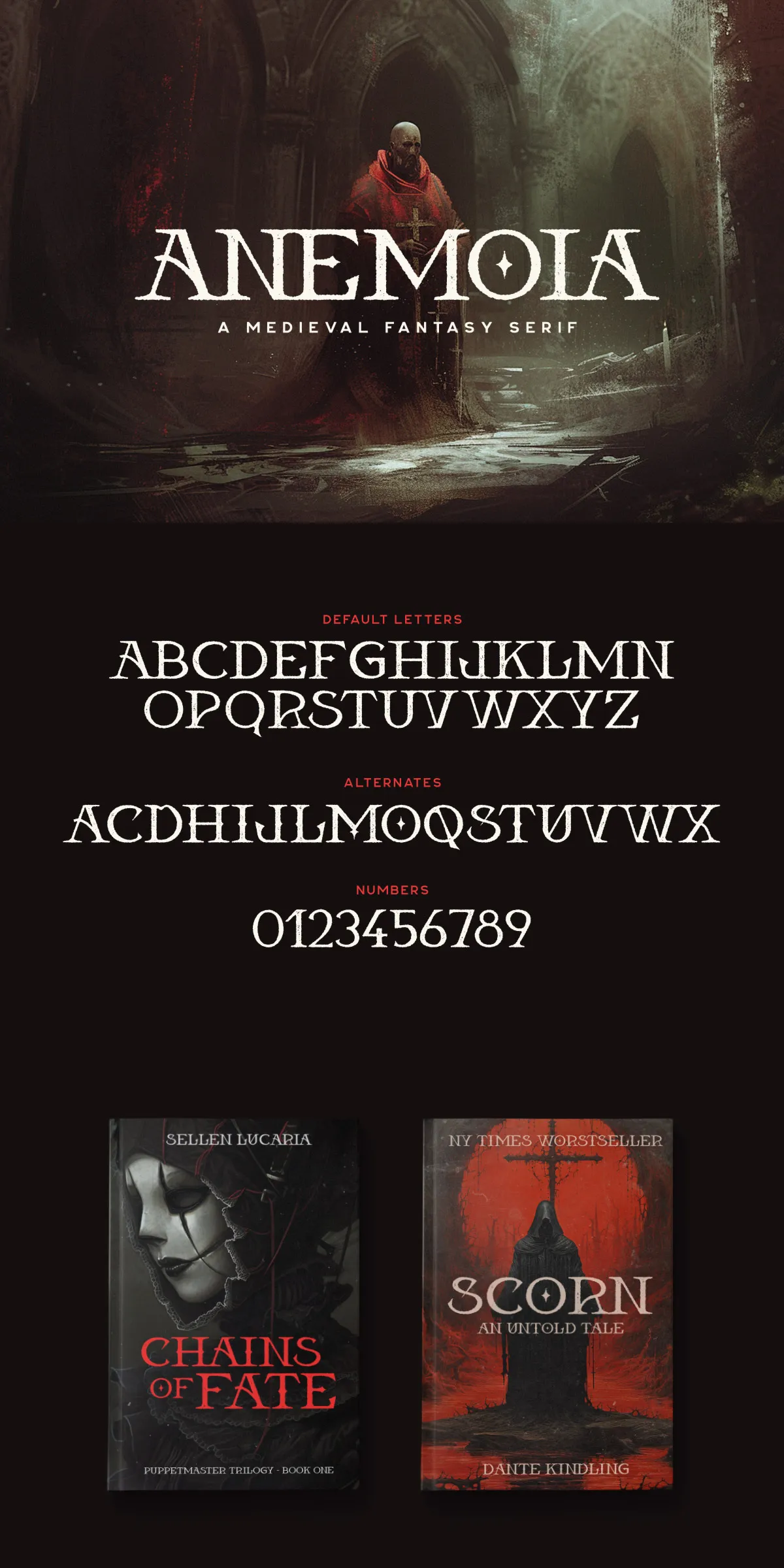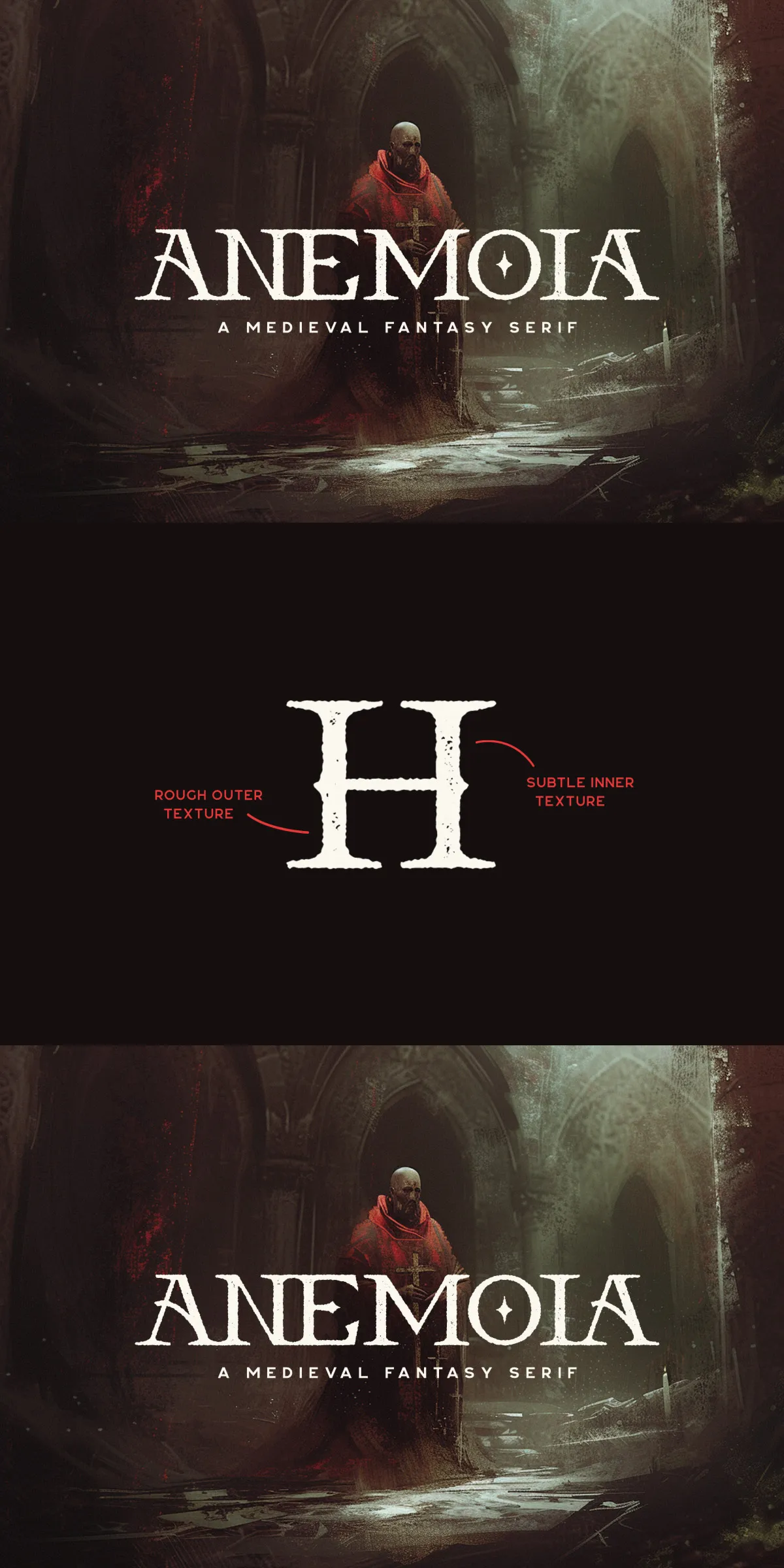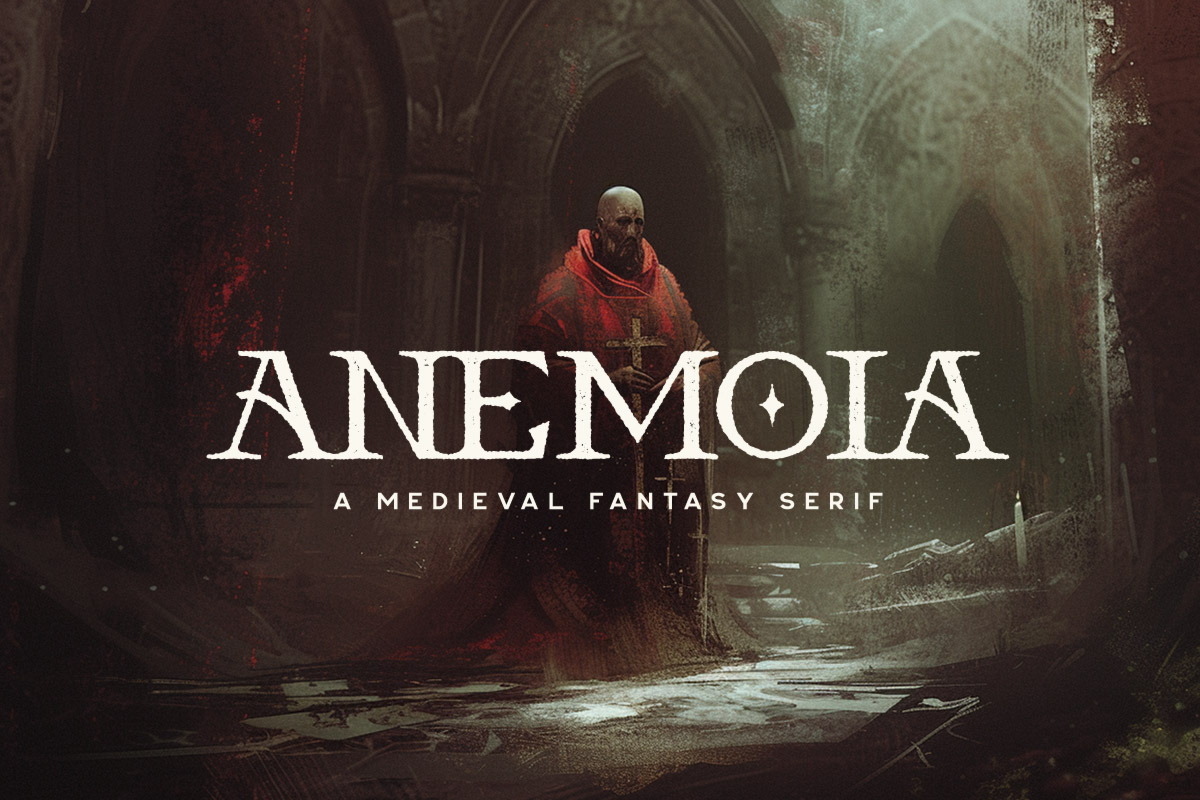
Anemoia Typeface
Step into a realm where typography becomes an act of magic. Anemoia isn’t just a font — it’s an interactive experience. This fantasy serif typeface is designed to transform your text with every keystroke, unlocking hidden character variations through a simple, intuitive command: Caps Lock. With Anemoia, your words don’t just say something — they evolve, reveal, and surprise.
Dynamic Typography at Your Fingertips
Unlike static fonts that repeat the same shapes over and over, Anemoia comes alive when you press Caps Lock. Each letter transforms into a beautifully crafted alternate version — from delicate flourishes to bold, ornamental substitutions. This isn’t just stylistic variety; it’s a creative control center built directly into your keyboard.
Imagine typing your name and suddenly watching it shift from sleek elegance to ethereal mystery. Or transforming a simple quote into a poetic masterpiece, letter by letter. With Anemoia, you’re not just writing — you’re conducting a visual symphony.
Features That Define the Magic
• Interactive Alternate Glyphs – Trigger stunning typographic variations instantly using Caps Lock. No complex software required.
• Fantasy-Inspired Serif Design – Each character blends ancient calligraphy with modern whimsy, perfect for storytelling, branding, and art.
• Highly Customizable – Use alternate letters selectively to emphasize mood, theme, or rhythm in your text.
• Perfect for Visual Storytelling – Ideal for book covers, logo concepts, poster art, and digital illustrations where personality matters.
Where Anemoia Makes the Difference
Anemoia thrives where imagination leads. Whether you’re crafting a fantasy novel’s title, designing a vintage-inspired poster, or building a mystical brand identity, this font gives your work a unique edge. The subtle shift from one glyph to another adds rhythm and intrigue — making your audience pause and wonder.
It’s not just about looks. It’s about response. The act of typing becomes a ritual. You write, you press a key, and your text transforms — like magic, but real.
Use Cases That Demand Character
• Branding & Logos – Create identity marks with hidden depth and visual storytelling.
• Book & Magazine Covers – Add a layer of mystery and style to genre-defining titles.
• Event & Festival Designs – Perfect for fantasy, retro, or avant-garde themes.
• Social Media & Digital Content – Stand out with text that feels alive and interactive.
• Artistic Visual Projects – Use in illustrations, mood boards, or digital paintings where typography is part of the art.
Create With Intention, Not Just Format
Anemoia turns every typed phrase into a moment of discovery. It’s for designers who value personality over uniformity, for creators who want their work to be more than readable — to be memorable. It’s the font for those who believe typography should be as expressive as the words it carries.